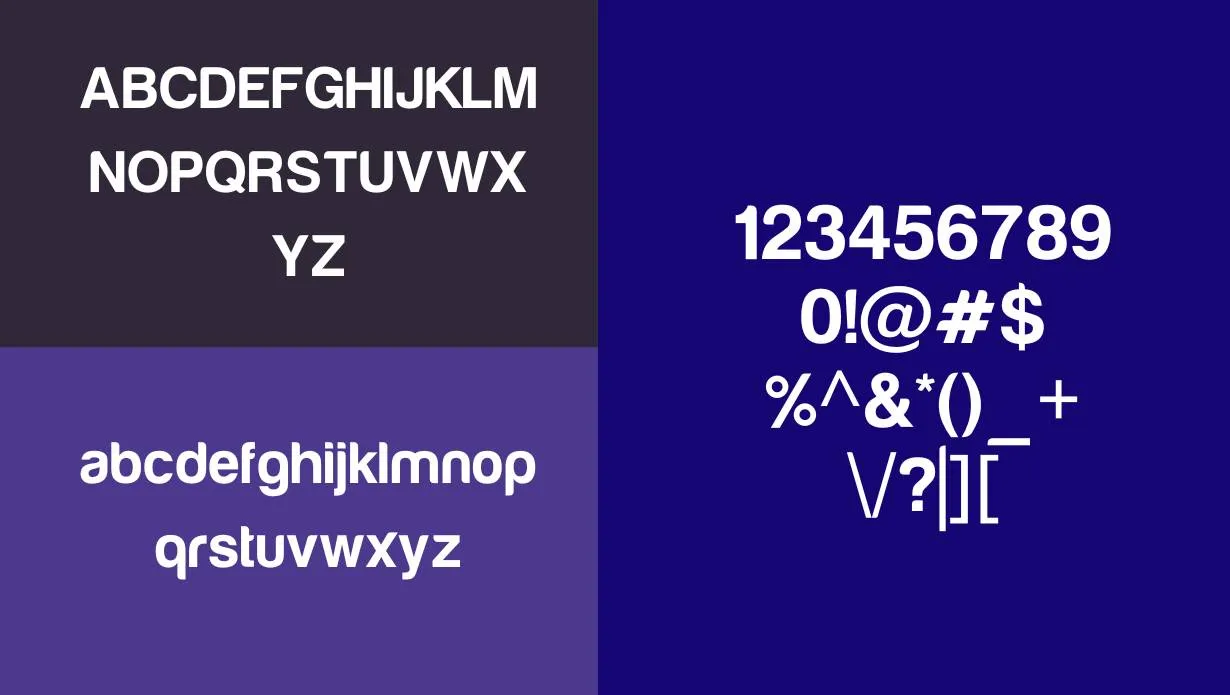
The Harabara Mais font is favored for modern and attention-grabbing design elements. Its strong and bold appearance makes it suitable for impactful titles or logos, often utilized in advertising or digital media.
While character counts may vary, they generally include standard Latin characters, numerals, and select special symbols, offering a balanced selection for various design purposes. When striving for a design that stands out and captures attention, the key is to pair this font with the geo sans font.
| Name | Harabara Mais Font |
| Designer | André Harabara |